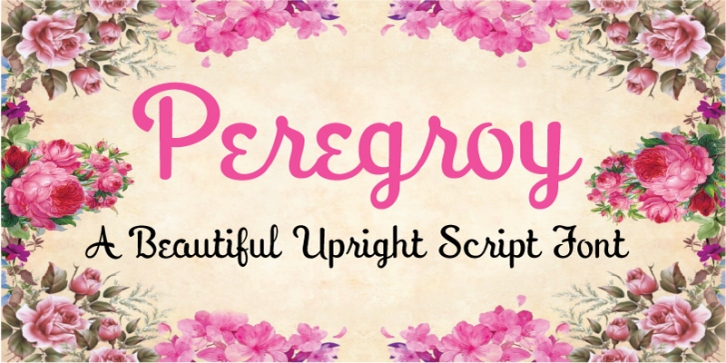
Peregroy was inspired by the hand-lettered titles of a popular animated film, and is friendly and engaging. Its feminine charm and simplicity gives it a sense of being welcoming and approachable.